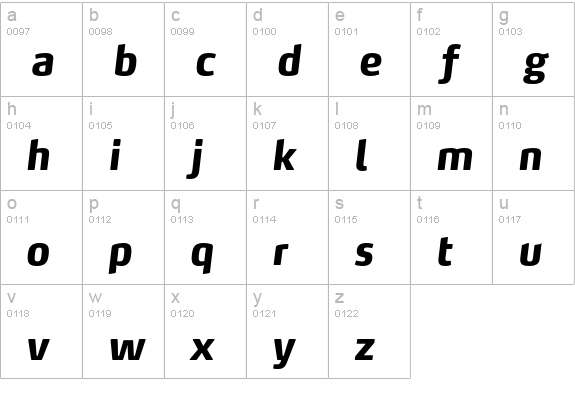
MaxTF-ExtraBoldItalic Font Details
MaxTF-ExtraBoldItalic is a striking and eye-catching font that exudes confidence and modernity. With its bold and italicized style, this font is perfect for making a bold statement and attracting attention. The unique design of MaxTF-ExtraBoldItalic sets it apart from other fonts, making it a versatile choice for a wide range of design projects. What makes MaxTF-ExtraBoldItalic even more appealing is that it is available for free download at FontsMarket.com. This means that you can easily access this stylish font and use it in your projects without any cost. Whether you're working on a poster, logo, website, or any other design project, MaxTF-ExtraBoldItalic is sure to make a bold impact and elevate your design to the next level. Download this font today and unleash your creativity with MaxTF-ExtraBoldItalic!